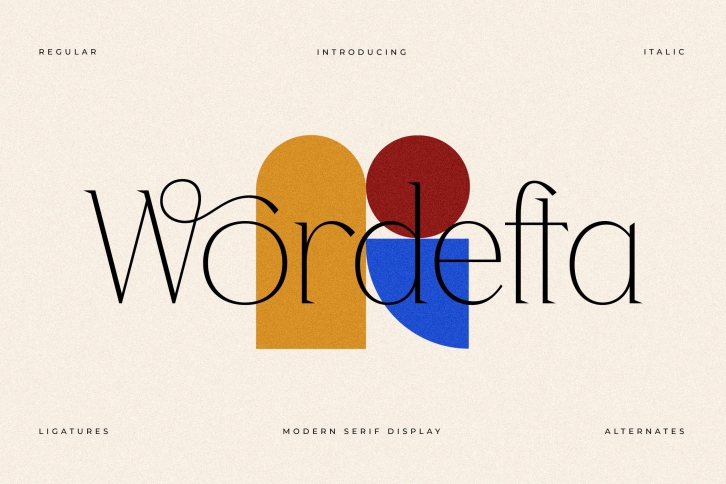
Proudly present Wordefta Typeface , created by Storytype,
A serif modern and classic typeface that has own unique style & modern look.
This typeface is perfect for an elegant & luxury logo, book or movie title design, fashion brand, magazine, clothes, lettering, quotes, and so much more.